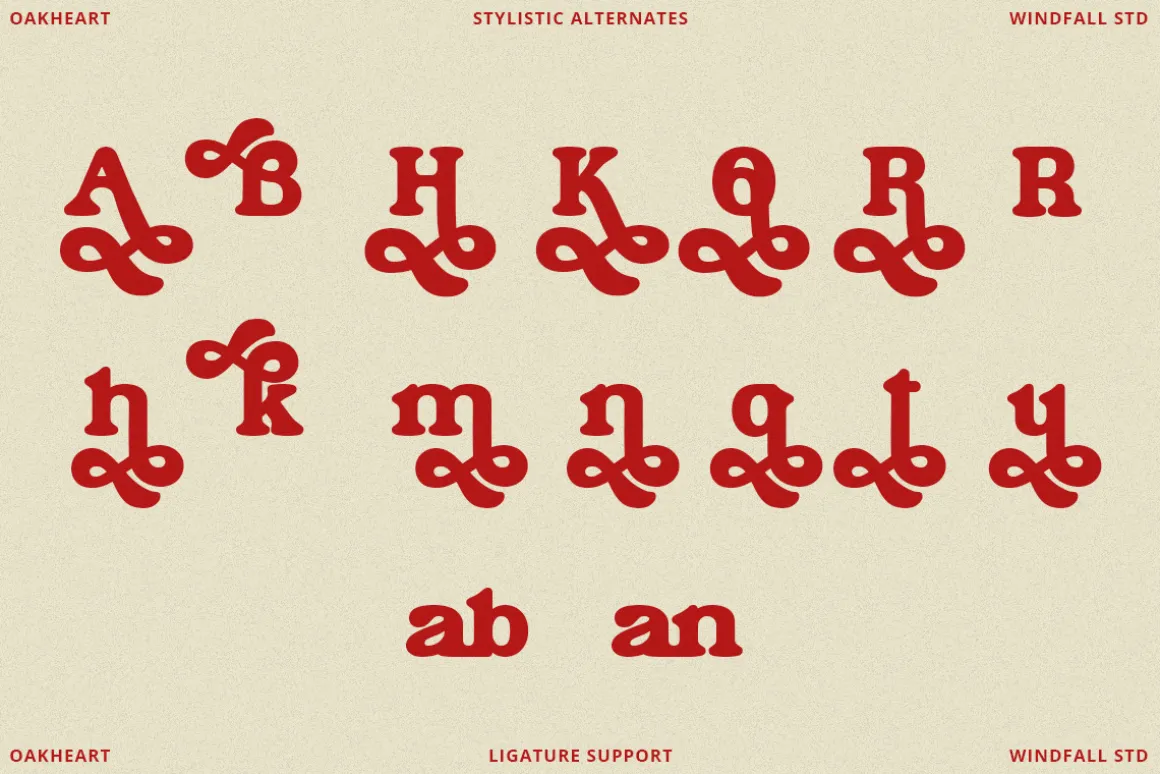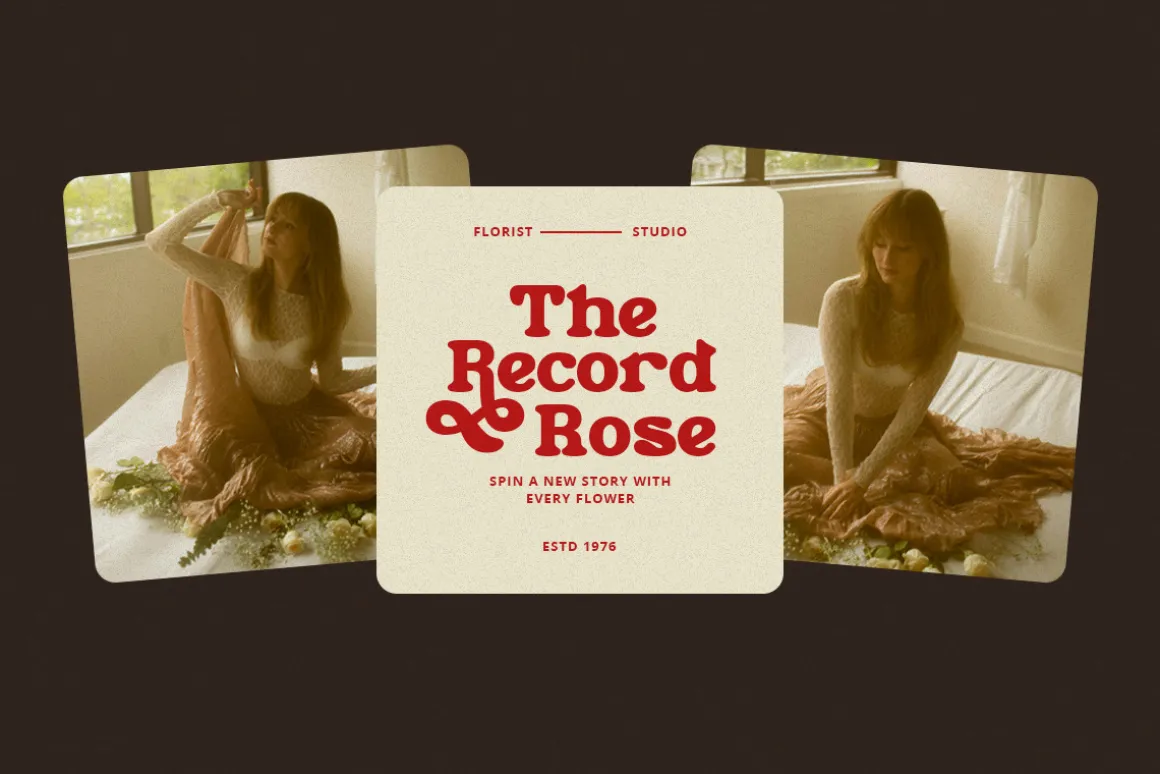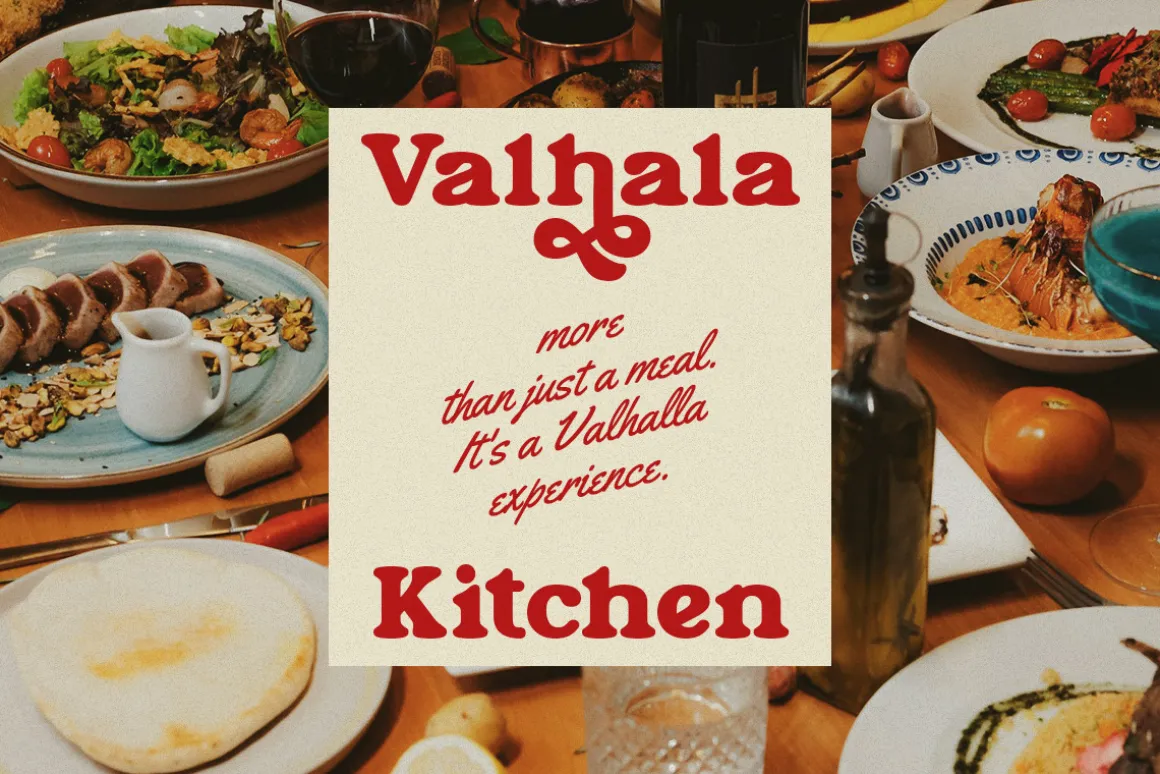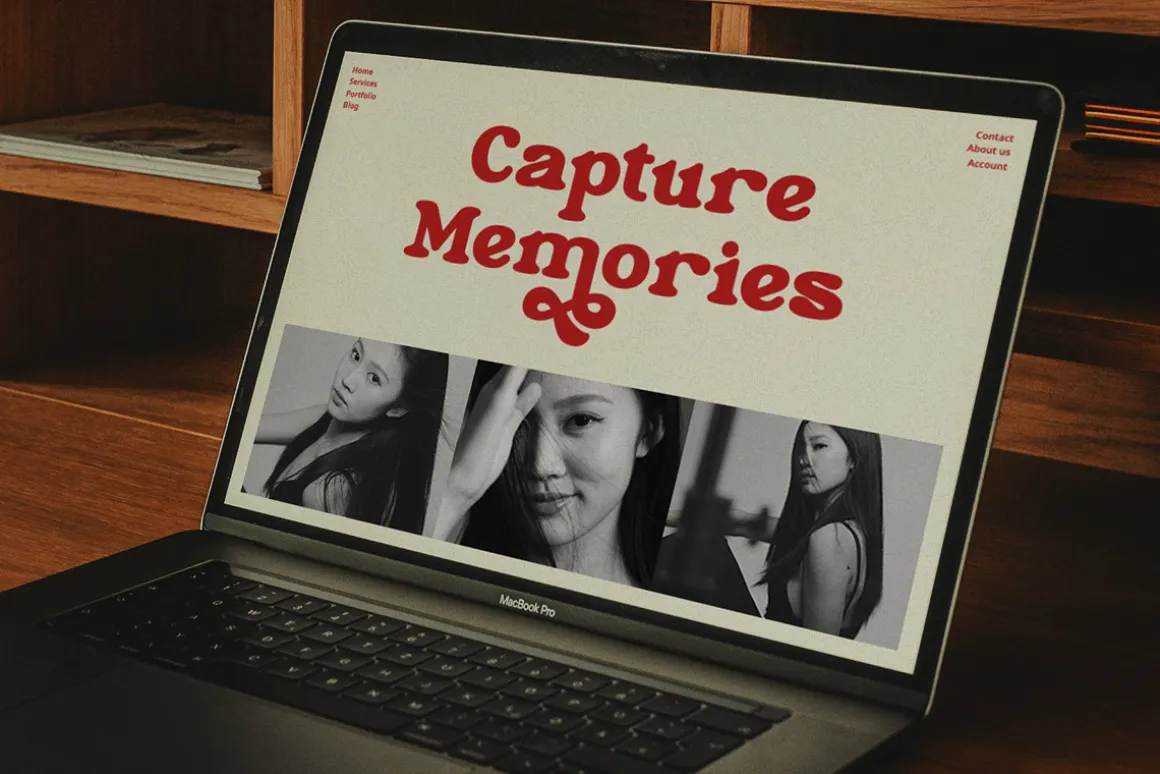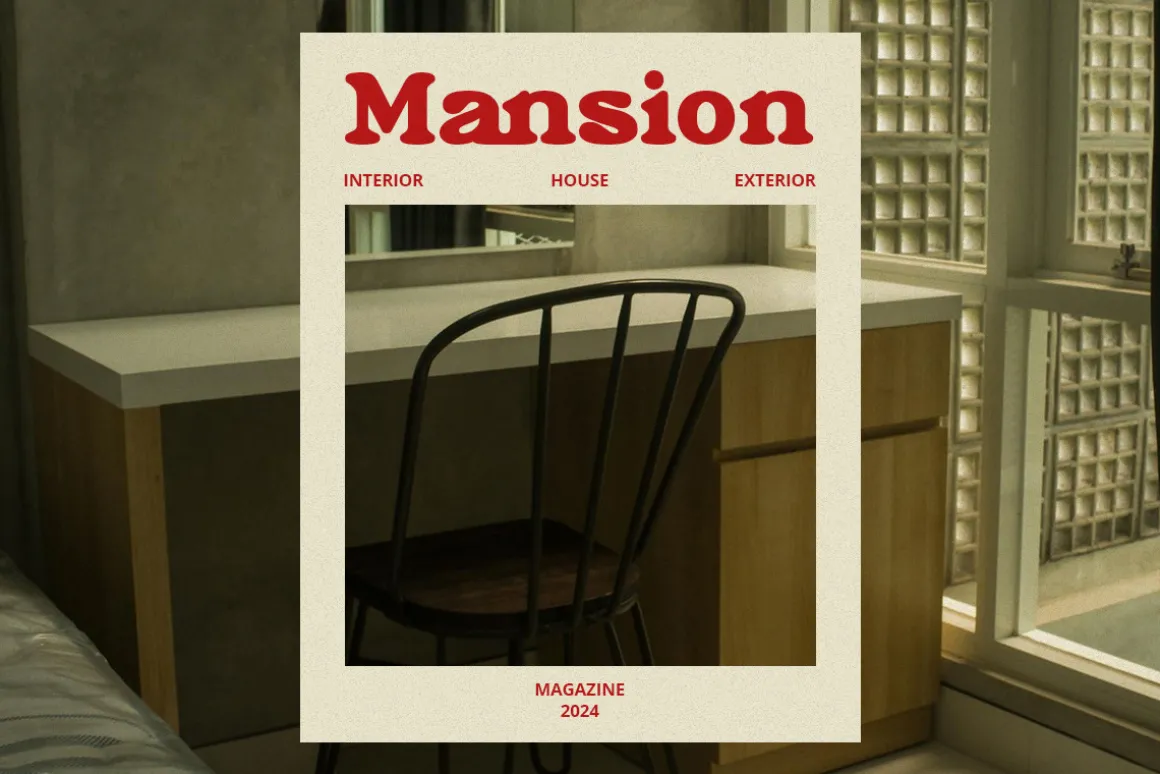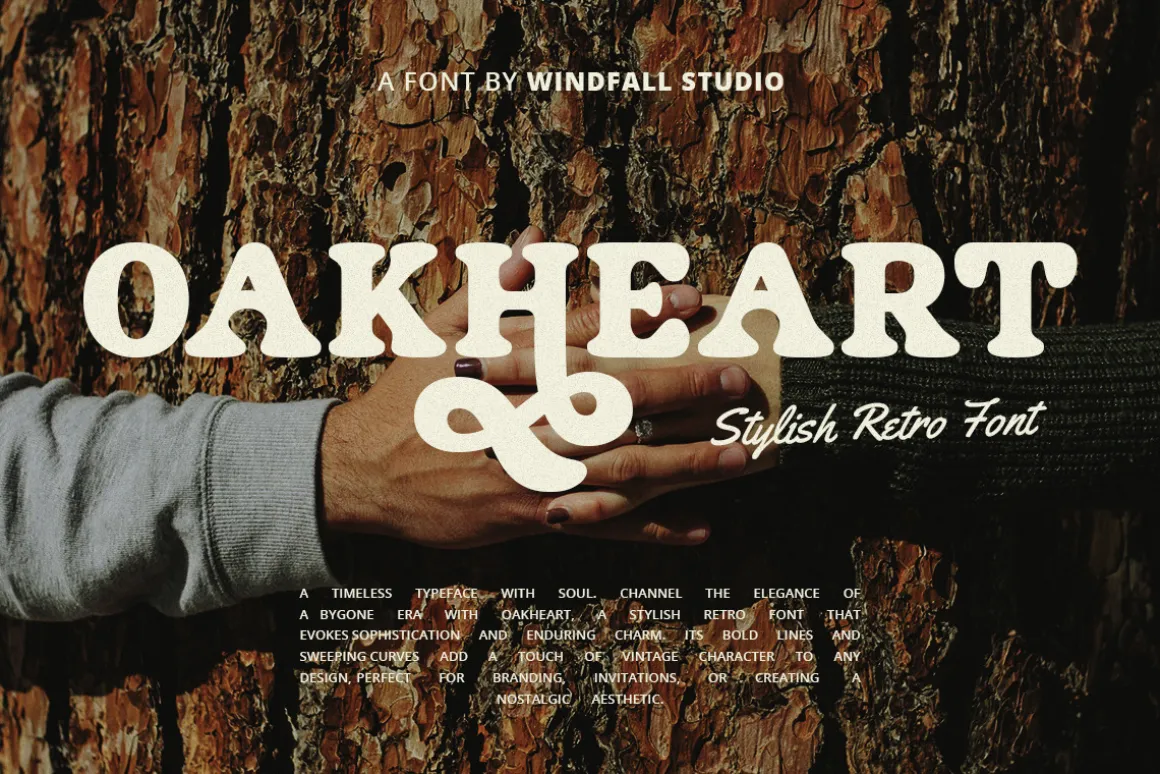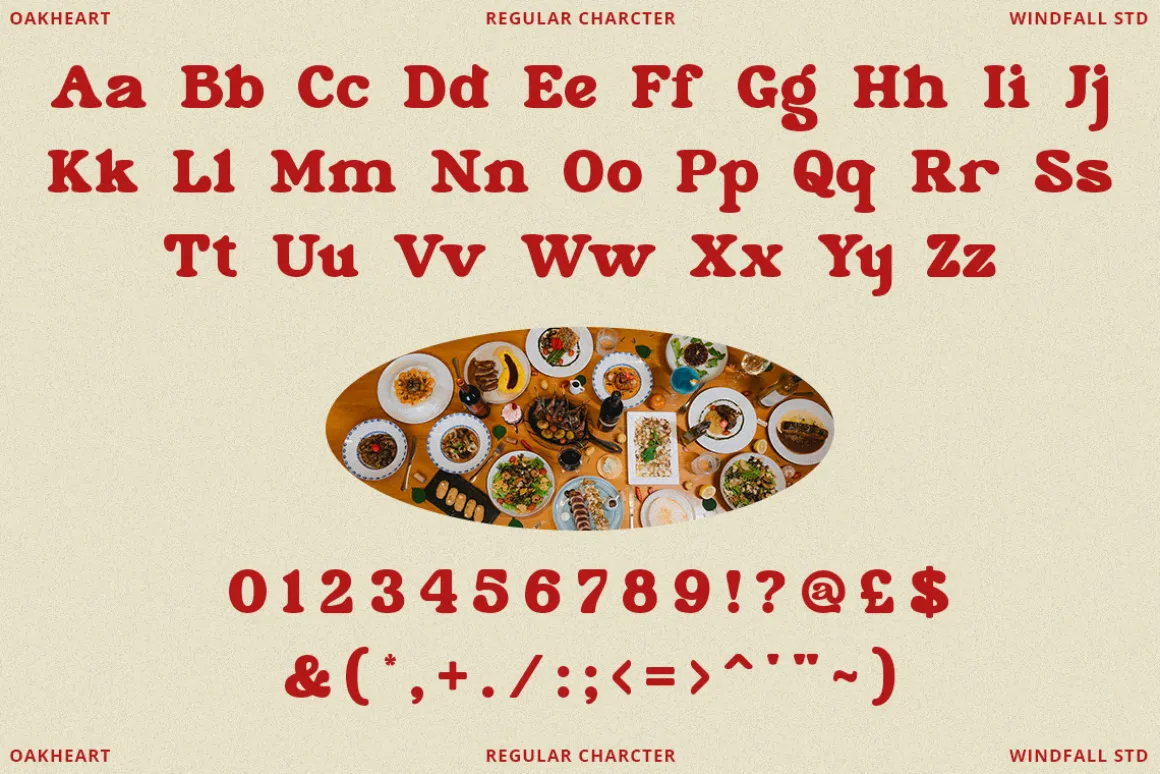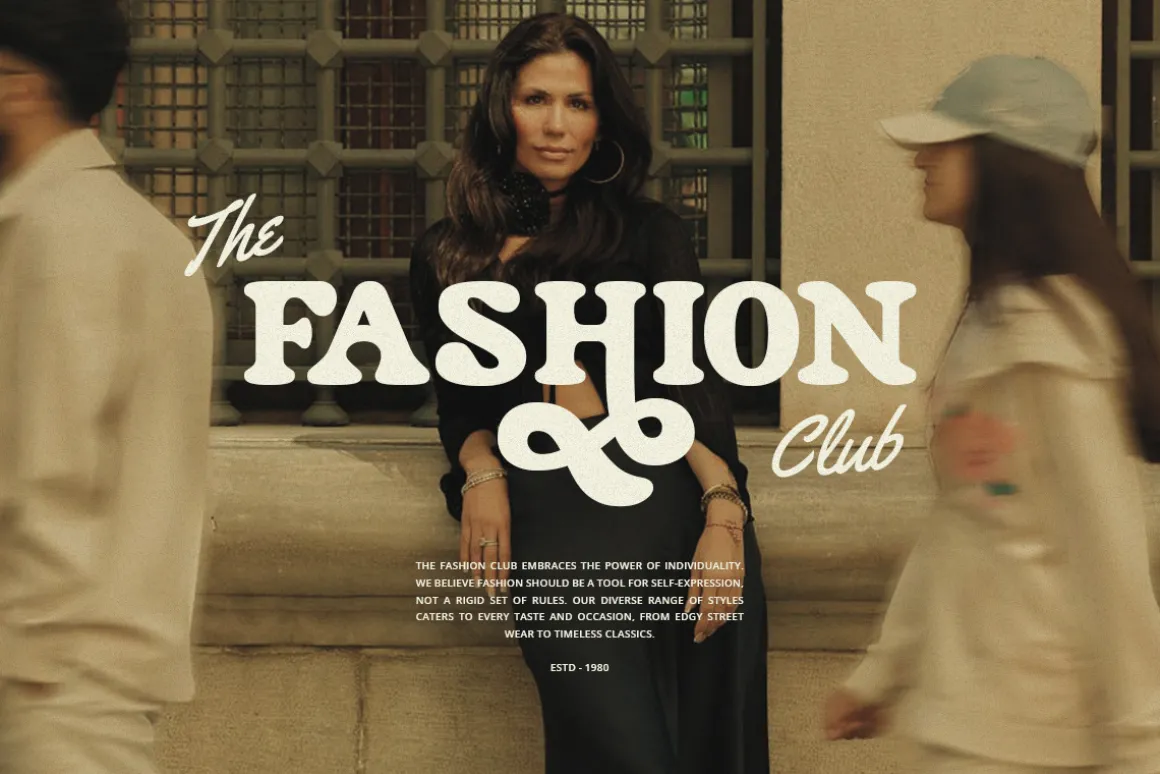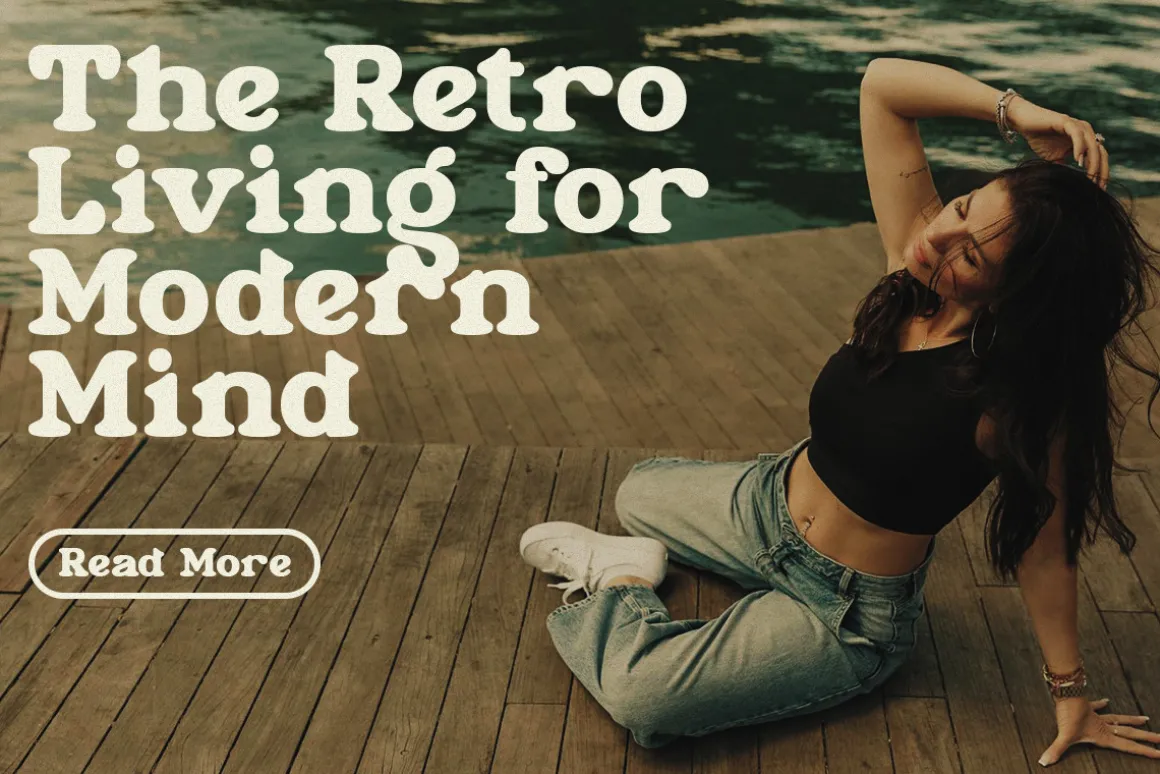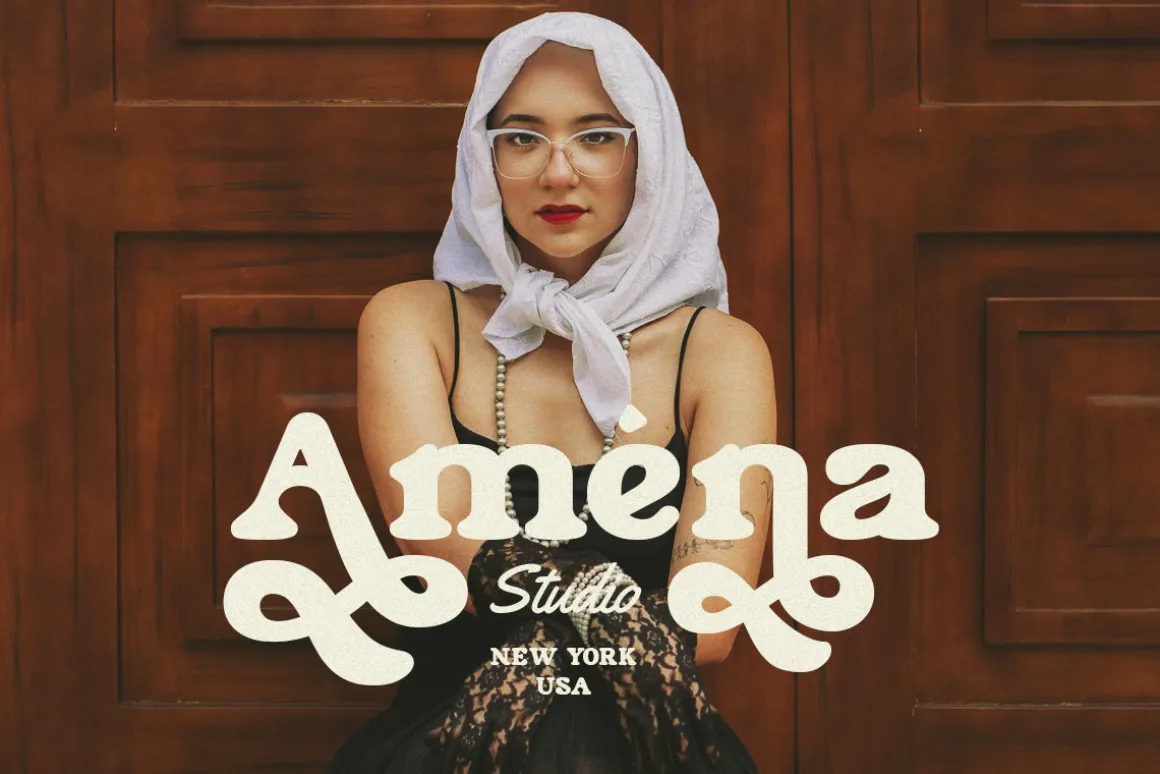
Oakheart is a stylish retro font that evokes sophistication and enduring charm. With its bold lines and sweeping curves, this typeface adds a touch of vintage character to any design. Oakheart is perfect for branding, invitations, or creating a nostalgic aesthetic.
The font channels the elegance of a bygone era, making it an excellent choice for projects that require a timeless, classy look. Its unique blend of retro and modern elements ensures that Oakheart stands out in a variety of applications, from modern minimal designs to classic and elegant themes.
Oakheart supports ligatures and alternates, providing flexibility and creative freedom in your designs. This font is suitable for various themes such as helvetica, futura, corporate branding, and cinematic presentations. Its natural and rustic vibe makes it ideal for nature-themed projects, adding a warm and welcoming touch to your work.
With Oakheart, you can create a design that not only looks beautiful but also tells a story of elegance and charm. This font is the perfect choice for any project that needs a stylish, retro touch.
Oakheart is a playful retro font that exudes the joy and warmth of the vintage era. Combining classic retro elements with a modern touch, this font offers a fun and captivating atmosphere. Perfect for projects requiring a bright, funky, and joyful ambiance.
Oakheart Features:
- Uppercase & Lowercase
- Alternates & Ligatures
- Numerals & Punctuation
- Accented characters
- Multilingual Support